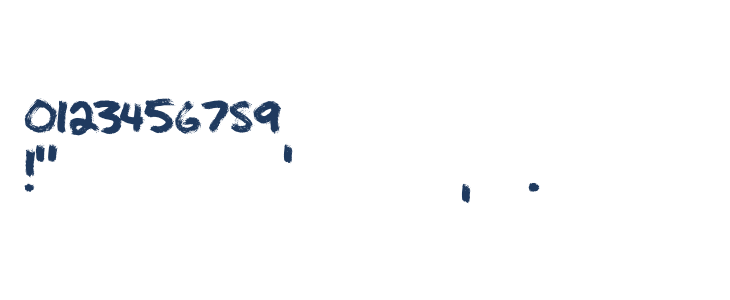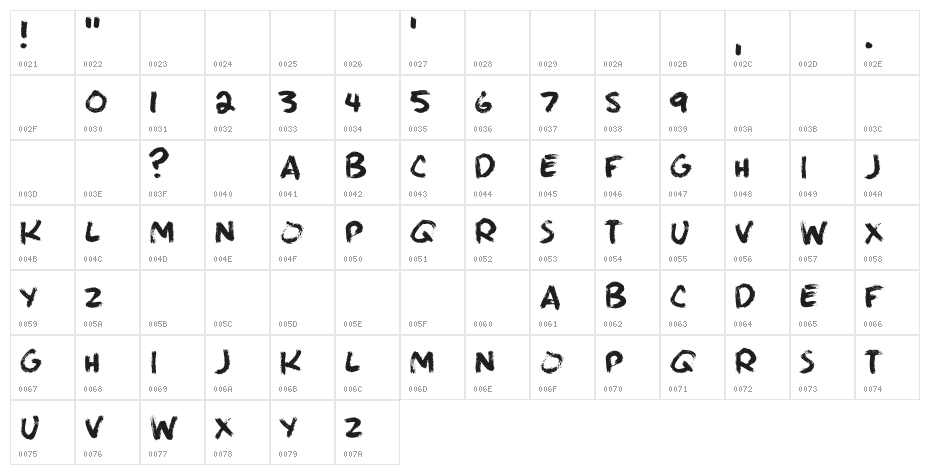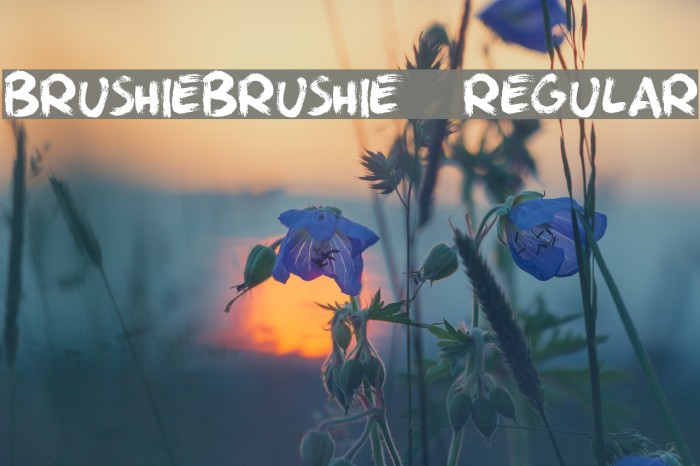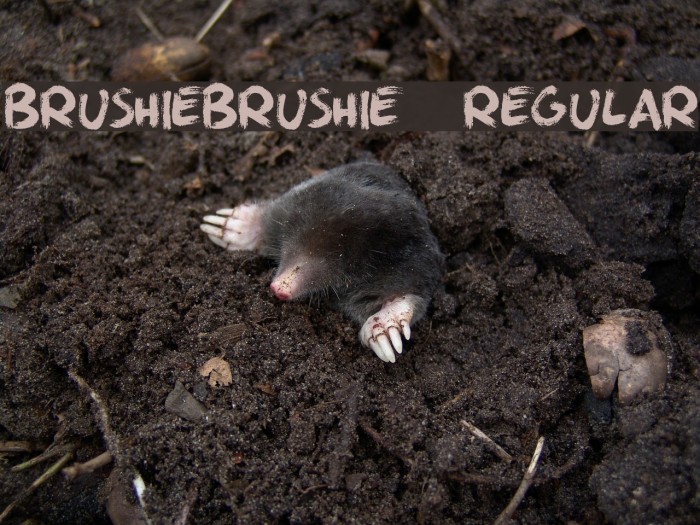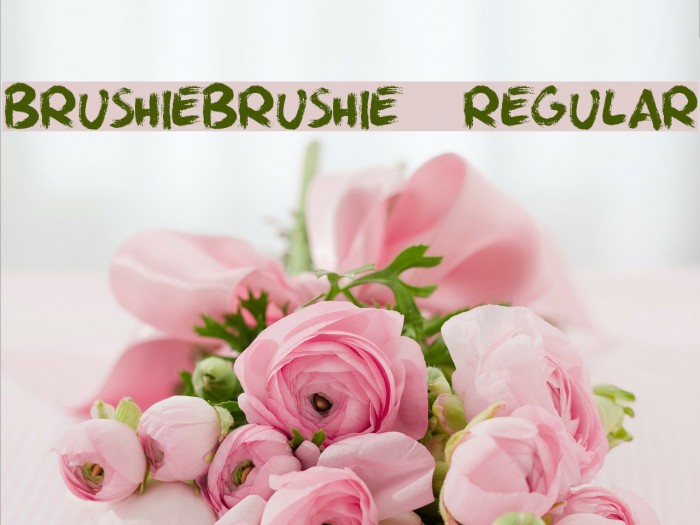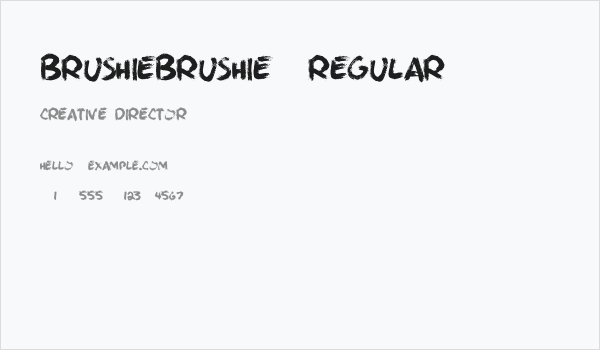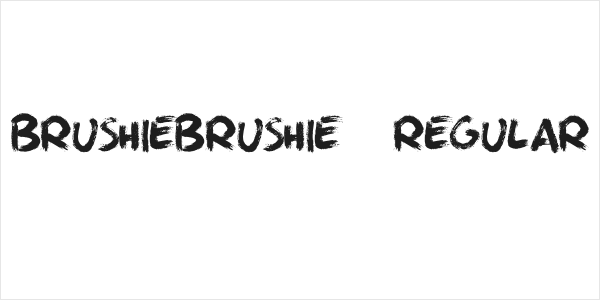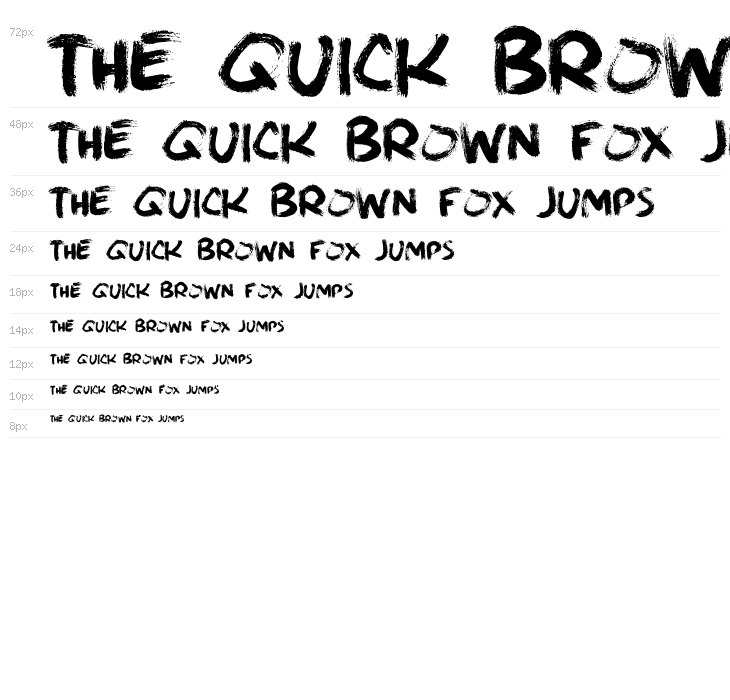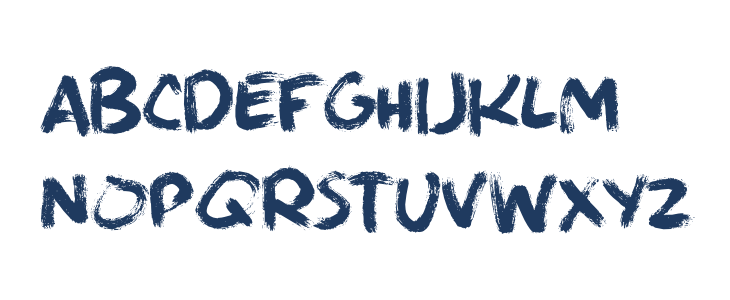
BrushieBrushie-Regular Font
BrushieBrushie-Regular Description
This font features a bold, brush-stroke style that gives it a dynamic and energetic appearance. The characters are crafted to mimic the texture and flow of hand-painted brush strokes, creating a sense of movement and artistic flair. The uppercase and lowercase letters maintain a consistent style, with varying stroke thickness that adds to the font's expressive nature. The numbers and special characters are designed with the same brush-like quality, ensuring a cohesive look across all elements. This font is ideal for projects that require a bold and artistic touch, such as posters, branding, and creative designs.
| Overall Style | Artistic, Dynamic |
| Use Case | Headlines, Logos, Creative designs |
| Proposed Projects | Perfect for posters, branding, artistic designs, and creative projects. |